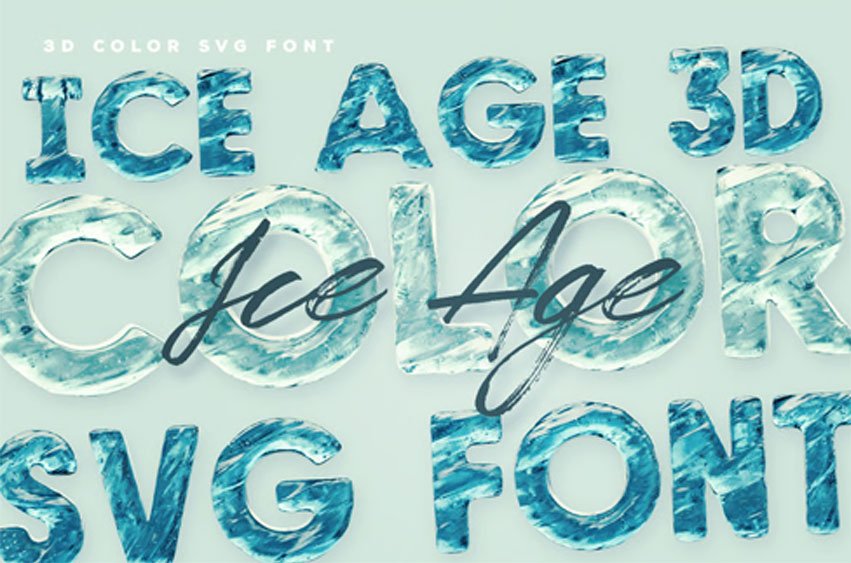
Ice Age Color Font
Ice Age Color Font 2 ice realistic 3D color fonts for your new projects. Color or SVG opentype font – working only in Photoshop CC 2017+, Illustrator CC 2018 and some Mac apps!